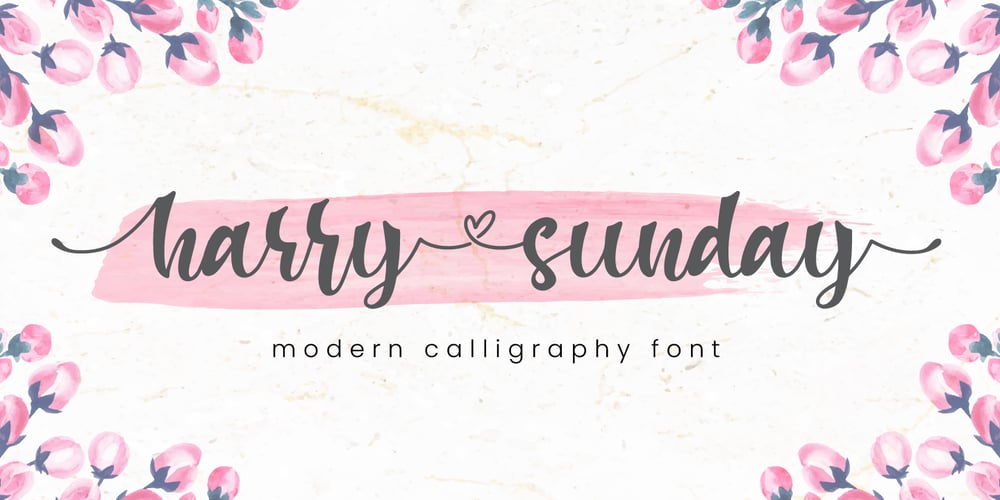
Harry sunday Font Family was designed by Fadli Ramadhan Iskandar and published by Attype Studio. Harry sunday contains 1 styles and family package options. Harry sunday is a delicate and incredibly distinct handwritten font with 3 stylistic set. Fall in love with its incredibly versatile style and use it to create spectacular designs!What’s Included :- ligatures- Beginning & Ending Swash- Multilingual Support —Hope you enjoy with our font!Attype Studio